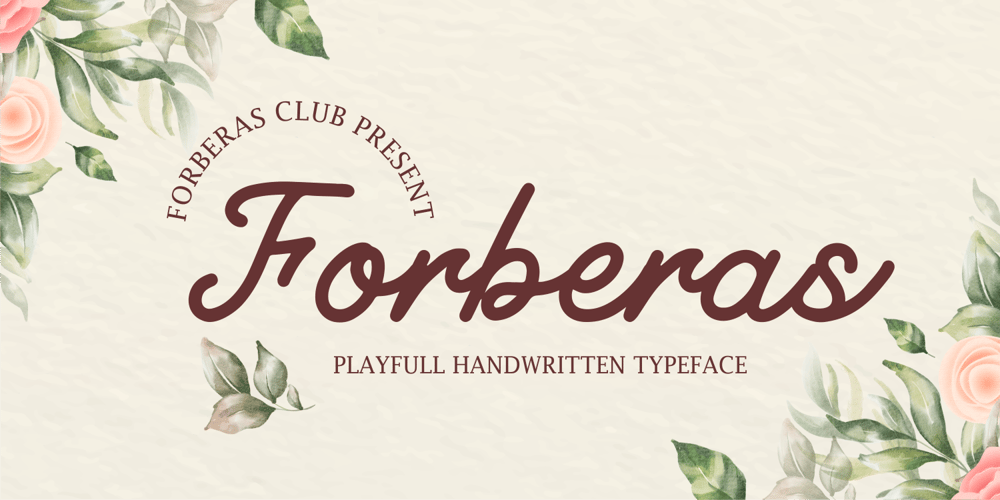
Forberas
Forberas font
Forberas Font Family was designed by ANGGI HERMAWAN and published by Forberas Club. Forberas contains 1 styles and family package options. Forberas Club is usable for anything. But will be better if you use it for memorable moment.